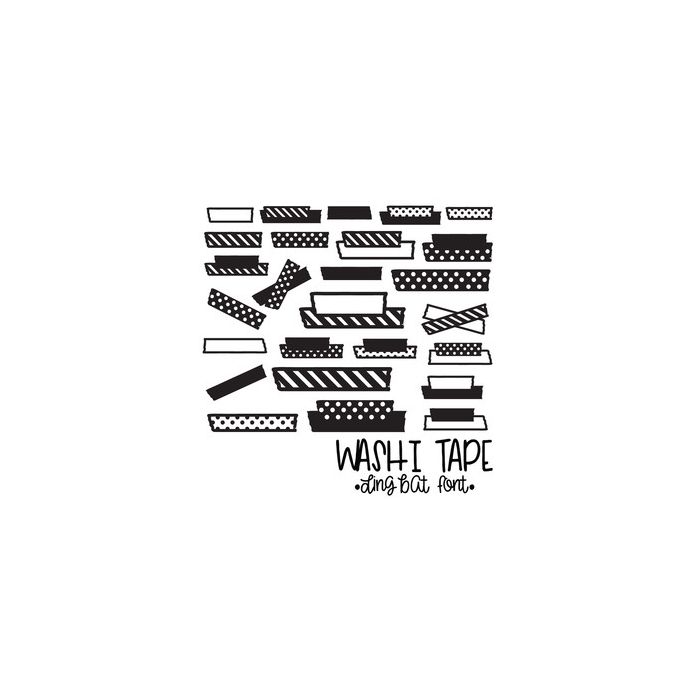
Washi Tape Dingbat Font, with 26 washi tape combinations - print onto vellum for an authentic washi look! All dingbats are allocated to upper and lowercase letters and can be accessed via the glyphs panel or character map.